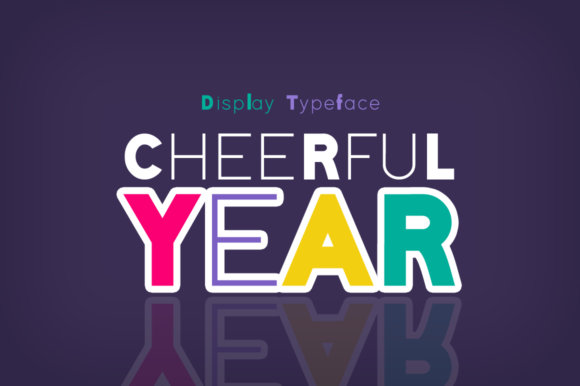
In a world where words dance and stories come alive, there exists a font that captures the essence of jubilation and renewal—Cheerful Year. This extraordinary display font, brought to life by the creative minds at Shattered Notion, is not just a collection of letters; it's an invitation to celebrate life's joyous moments.
With its playful curves and energetic strokes, Cheerful Year evokes a sense of optimism and cheer that's impossible to resist. Each character dances across your screen like a ray of sunshine, illuminating your designs with happiness and exuberance. Whether you're creating New Year's cards, greeting posters, or whimsical invitations, Cheerful Year is the perfect font to spread joy and laughter.
But Cheerful Year is more than just a pretty face. Its versatility knows no bounds. Whether you're working on a children's book, a fun-filled logo, or a vibrant social media post, Cheerful Year will effortlessly elevate your designs to new heights. Its playful nature adds a touch of whimsy, while its clean lines ensure readability and clarity.
And the best part about Cheerful Year? It's a font that truly speaks to your audience. Its charming personality and infectious energy create an emotional connection that captivates and engages. Your designs will come alive with a sense of wonder and excitement, leaving a lasting impression that lingers long after the last word is read.
So, embark on a creative journey with Cheerful Year, and let your designs radiate joy and merriment. Embrace the spirit of celebration and watch as your words transform into a symphony of smiles. Cheerful Year is more than a font; it's an experience that will bring happiness to your designs and warmth to your audience's hearts.